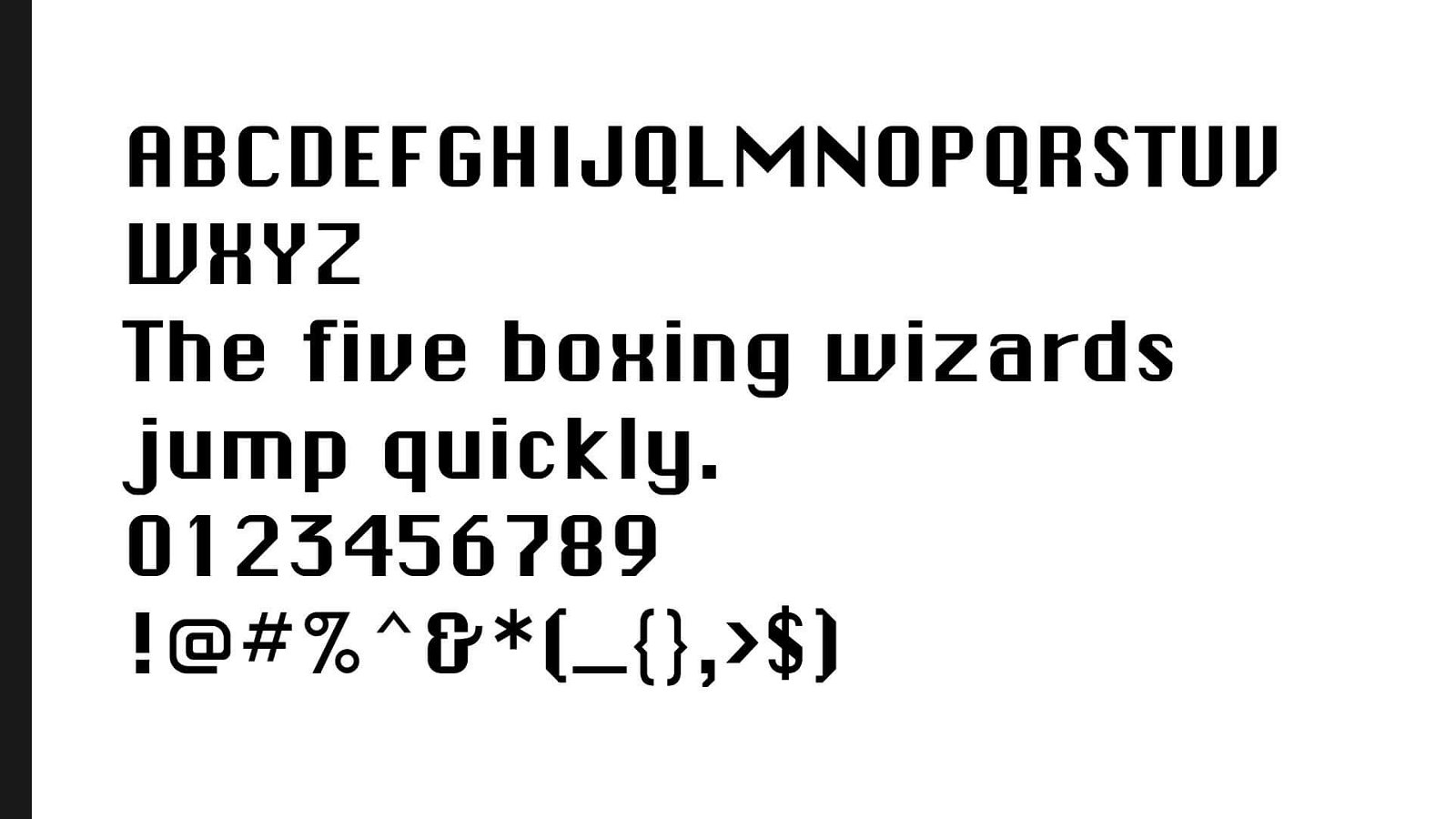
This is the sans-serif typeface that was designed for Apple Foundry and the styling of this font has been done by Susan Kare, after some years this font was re-designed by Charles Bigelow and Kris Holmes for making that more impactful.
In the beginning, this font is considered as the Bitmap typeface but after redesigning this font with the combinaiton of bernier font used for various designs and you wll find the generator tool of this typeface that is also helpful.
The name of this typeface is after the famous city of United States of America. This is the stylish typeface that has been listed inside google fonts that also for free download and personal use.
Reason to Use Chicago Font
This font is being used in a variety of different marketing and branding projects of Apple. Along with that many big companies are also using this typeface for different projects.
This is the famous sans-serif typeface that is being utilized in a variety of different designs along with the styling of renfrew font for textboards, designs, Logos, banners, and many more.
Chicago Font View
Here you can have a look on the view of Chicago Font.
Alternatives of Chicago Font
Chicago Font Family (Includes Total 14 Typeface)
- Chicago Regular
- Chicago Italic
- Chicago 3D Regular
- Chicago Bright Neon 3D Regular
- Chicago Flat Regular
- Chicago Flat 3D Regular
- Chicago Neon Regular
- Chicago Neon 3D Regular
- Chicago 3D Italic
- Chicago Bright Neon 3D Italic
- Chicago Flat Italic
- Chicago Flat 3D Italic
- Chicago Neon Italic
- Chicago Neon 3D Italic
What Type of Font Is Chicago Font?
Chicago font is the sans-serif. Susan Kare designed this typeface especially for Apple Foundry and after some years makes this public.
Who Designed the This Font?
The charge of styling this typeface has been taken by Susan Kare in the year of 1984.
Where You Can Use Chicago Typeface?
The usage of is this font is really wide this is being utilized in different types of design fields.